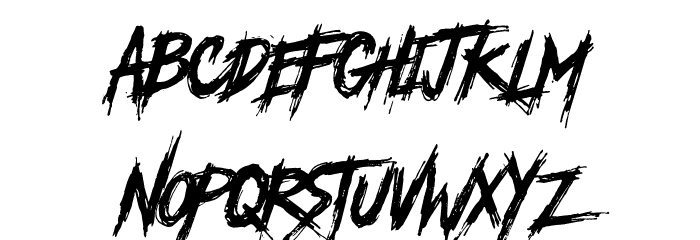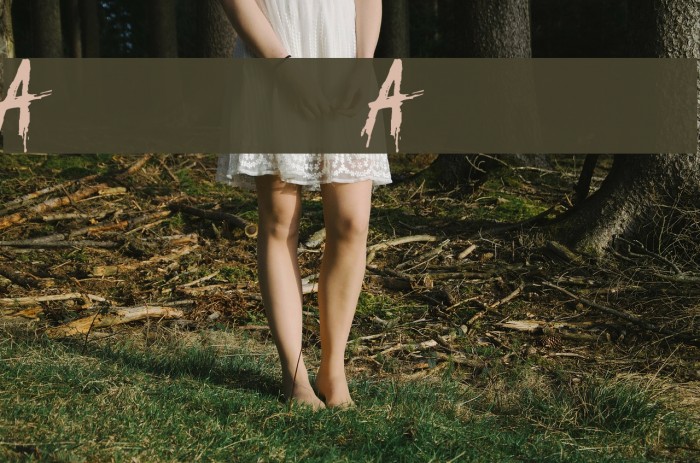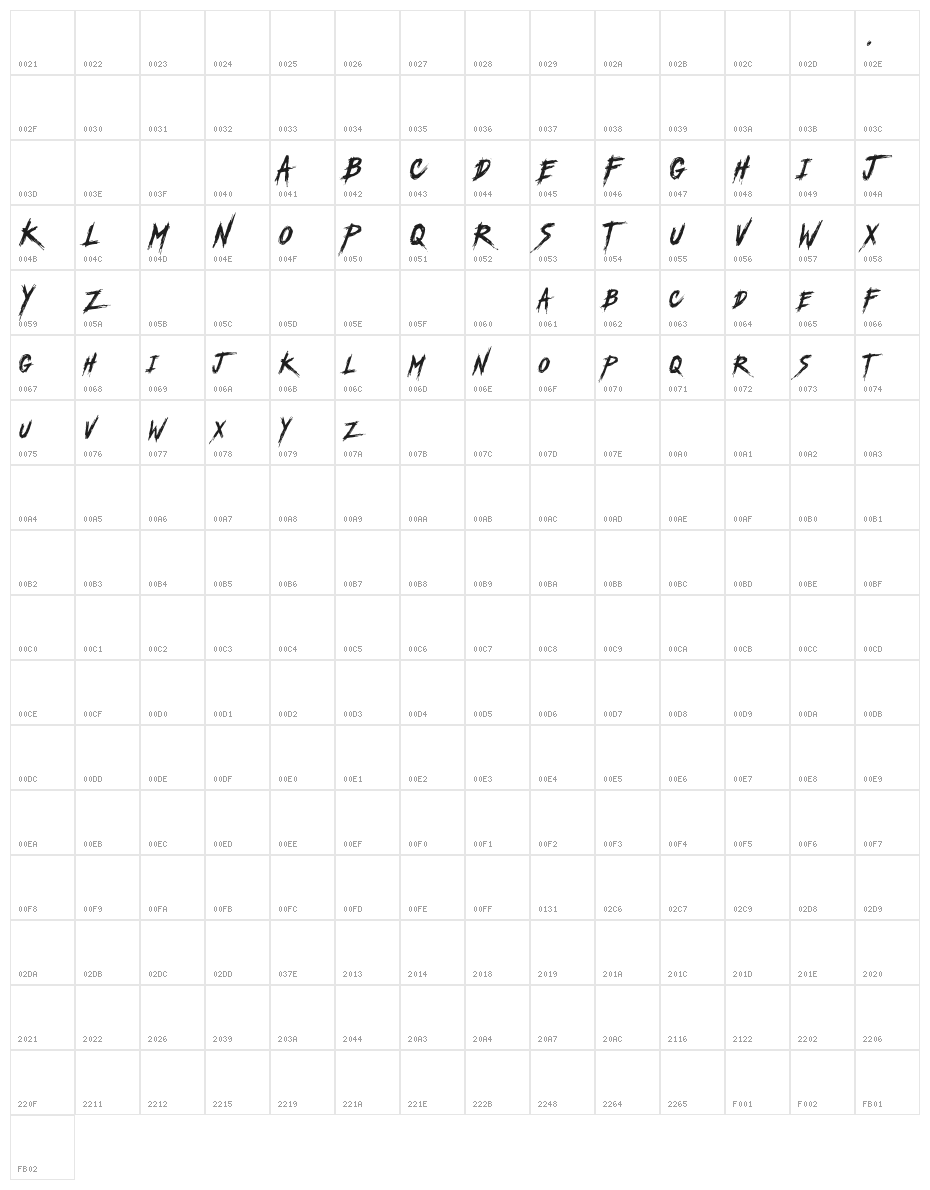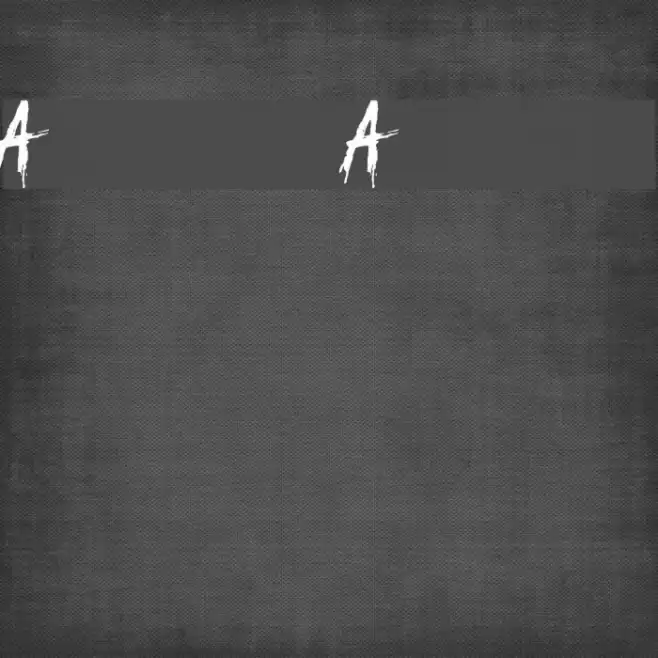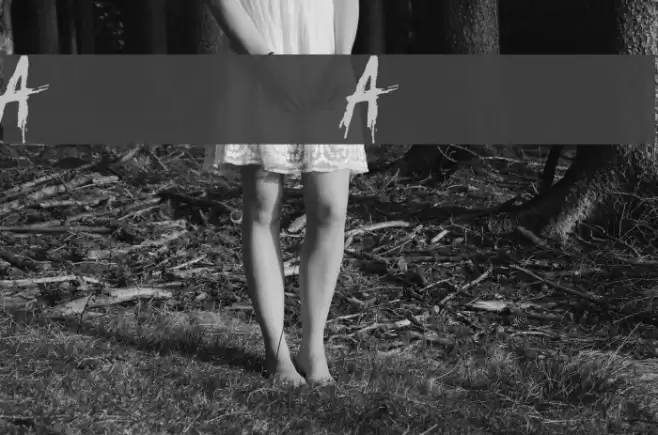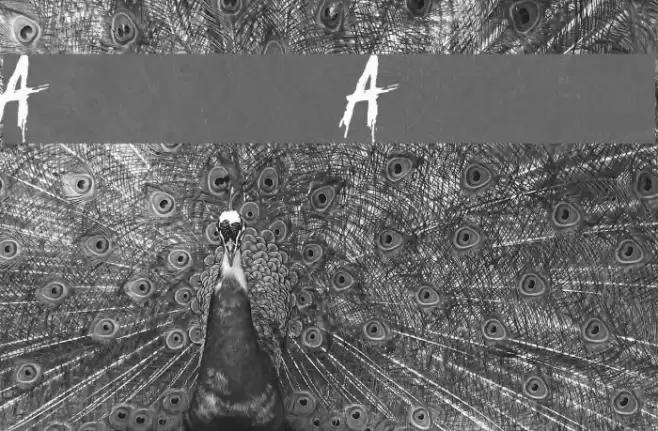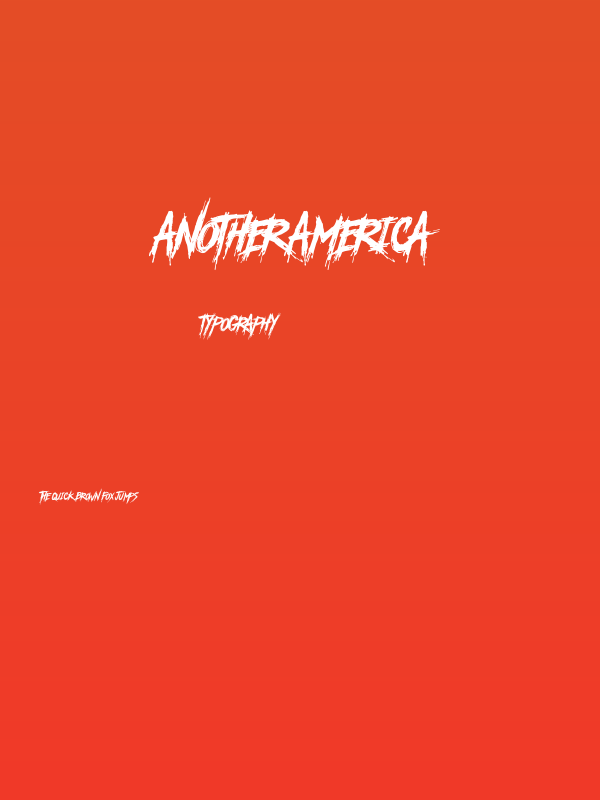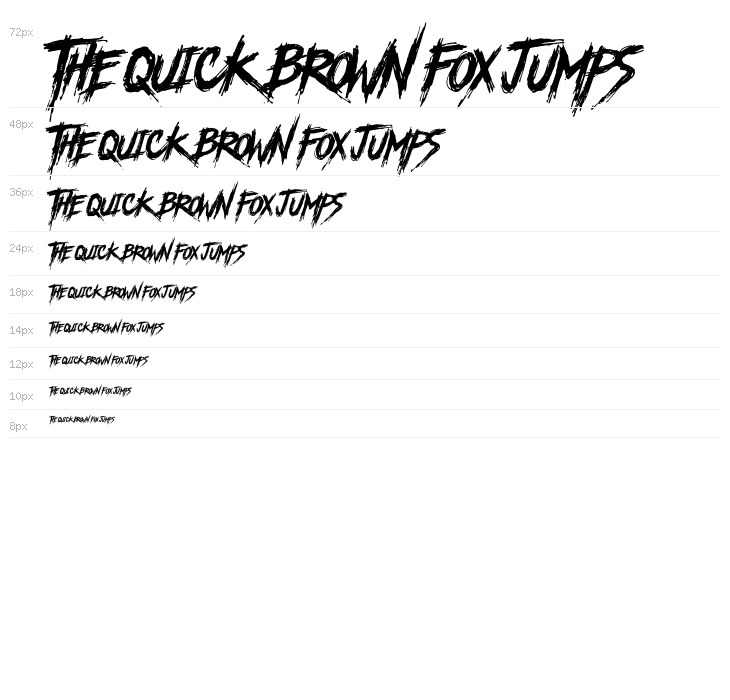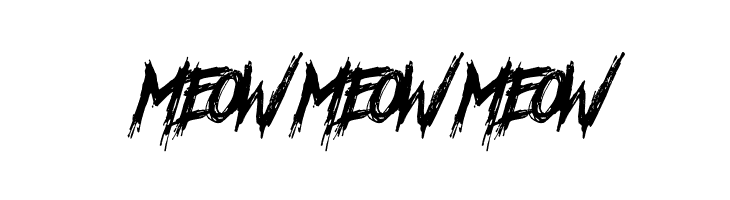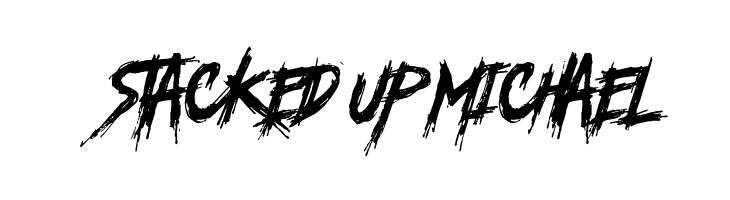
Another America Font
This font features a bold and aggressive style with sharp, jagged edges that give it a raw and energetic appearance. The strokes are uneven, resembling brush strokes or graffiti, which adds a rebellious and dynamic feel. The characters are tightly spaced, enhancing the intensity and urgency of the design. This font is highly decorative and makes a strong visual impact, suitable for projects that require a bold statement. Its unique style is reminiscent of street art and urban culture, making it ideal for modern and edgy designs.
A bold, jagged font with a graffiti-like, energetic style.
- Proposed Projects: Album covers, event posters, streetwear branding, skateboarding graphics, and urban-themed artwork.
- Character Spacing: Tight
- Overall Style: Modern, Urban, Edgy